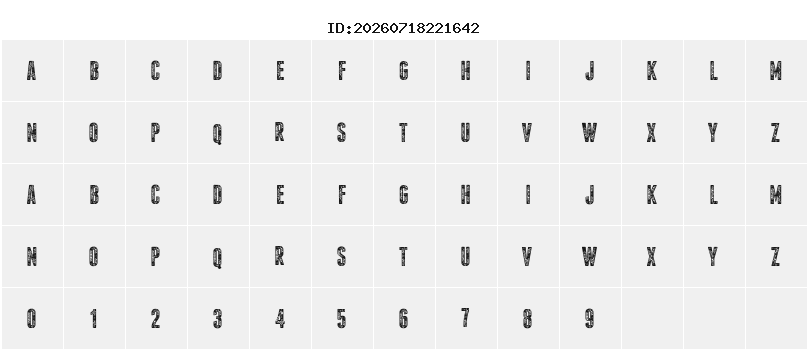
Cortina.ttf is a modern, elegant sans-serif font designed for ultimate readability and visual harmony. Perfect for branding, headlines, web design, and print materials.